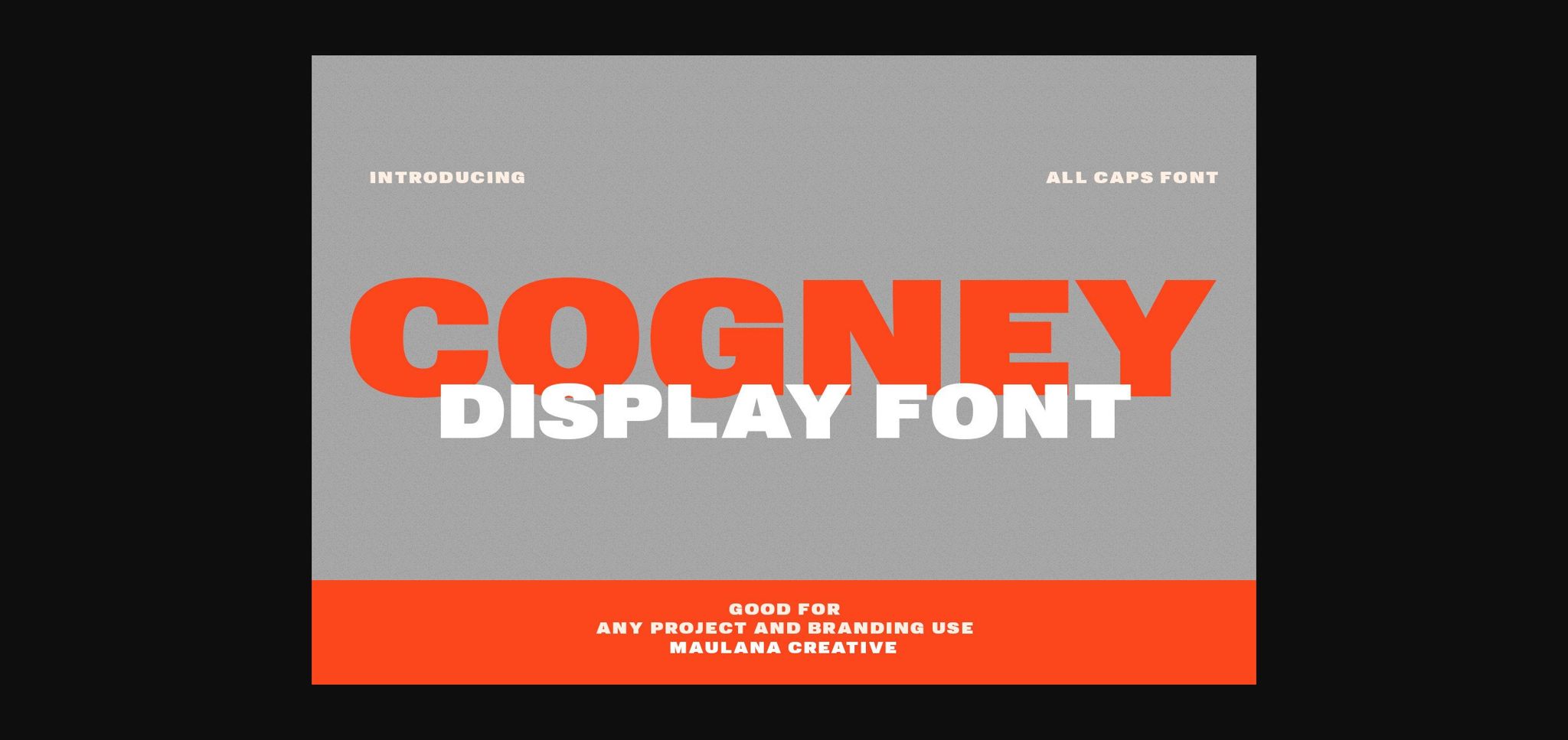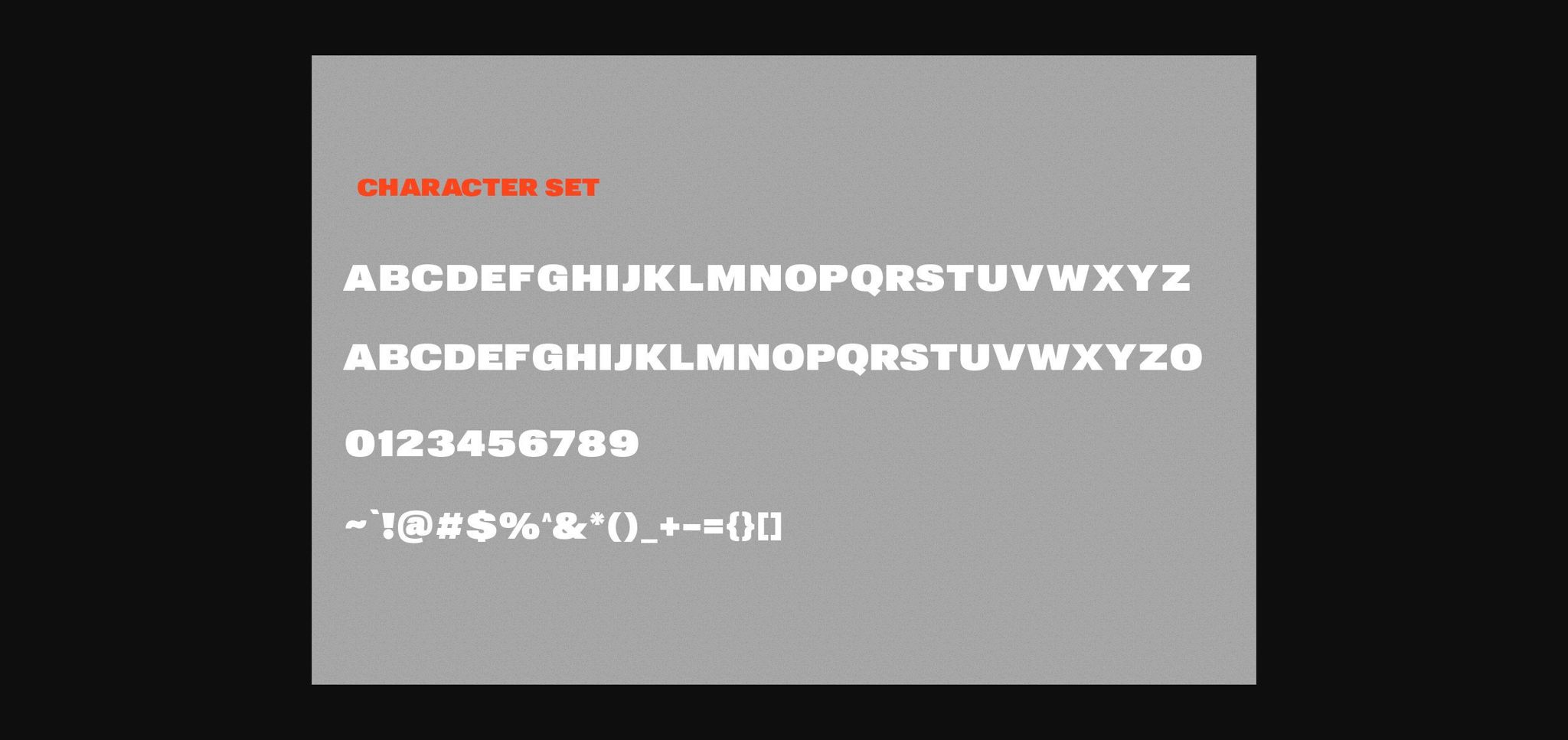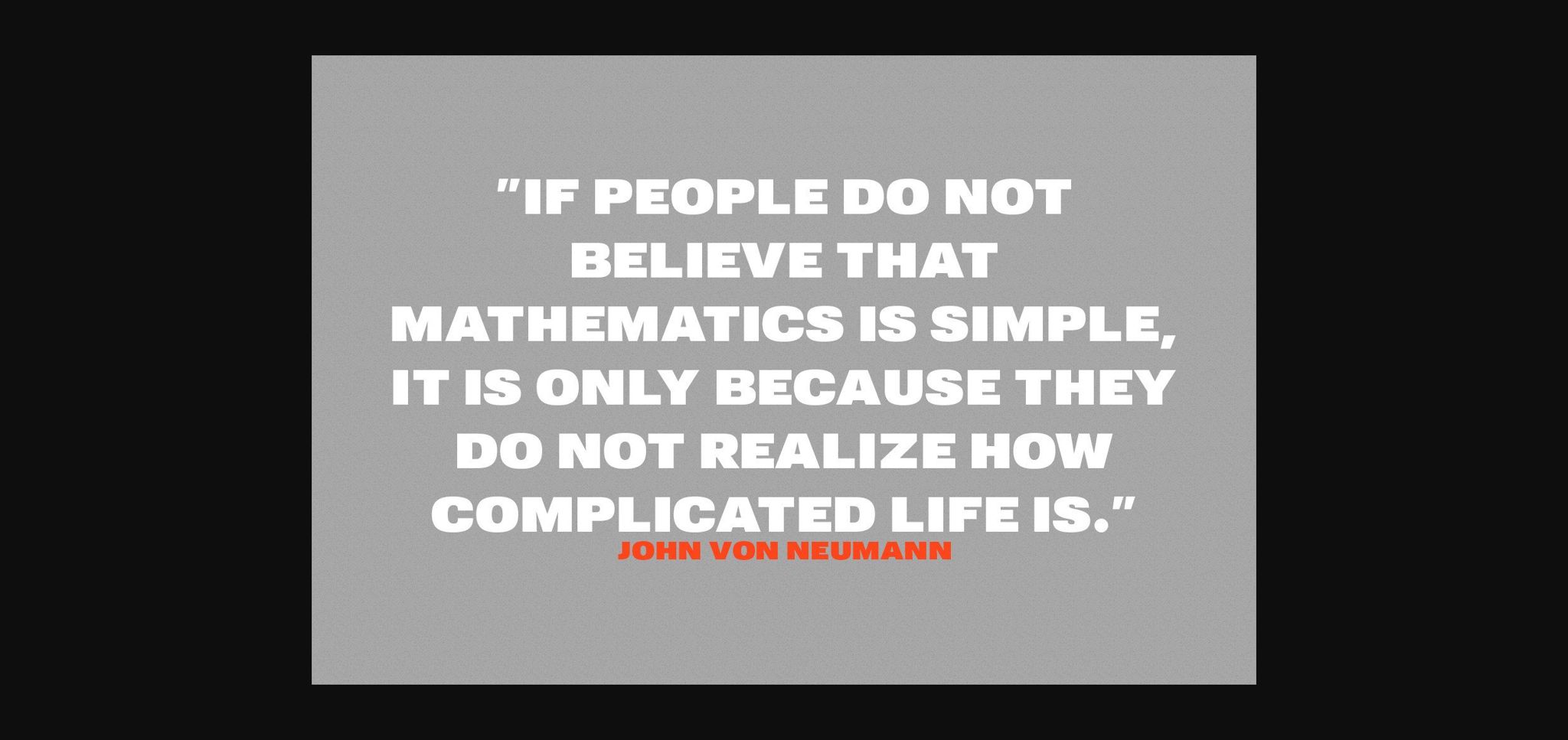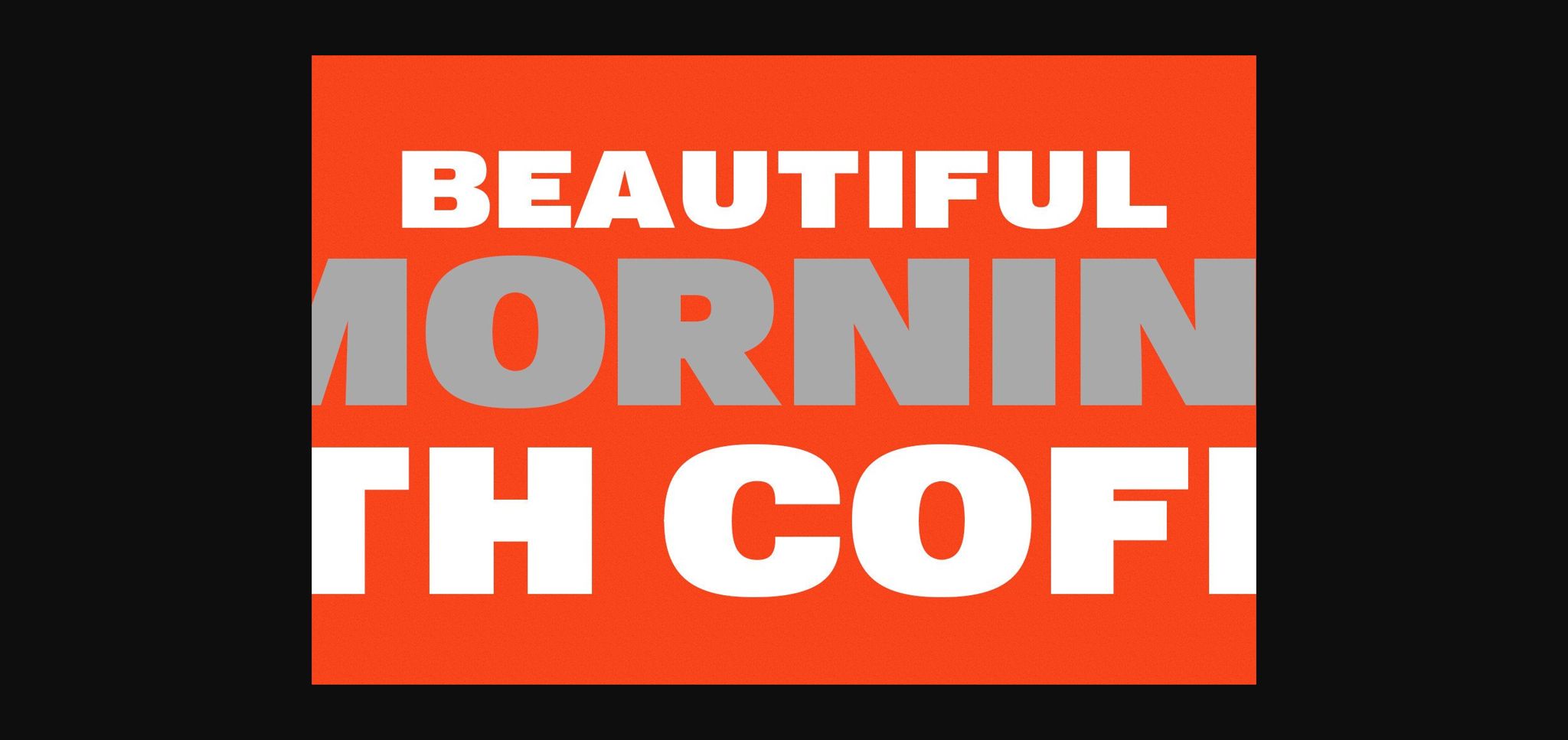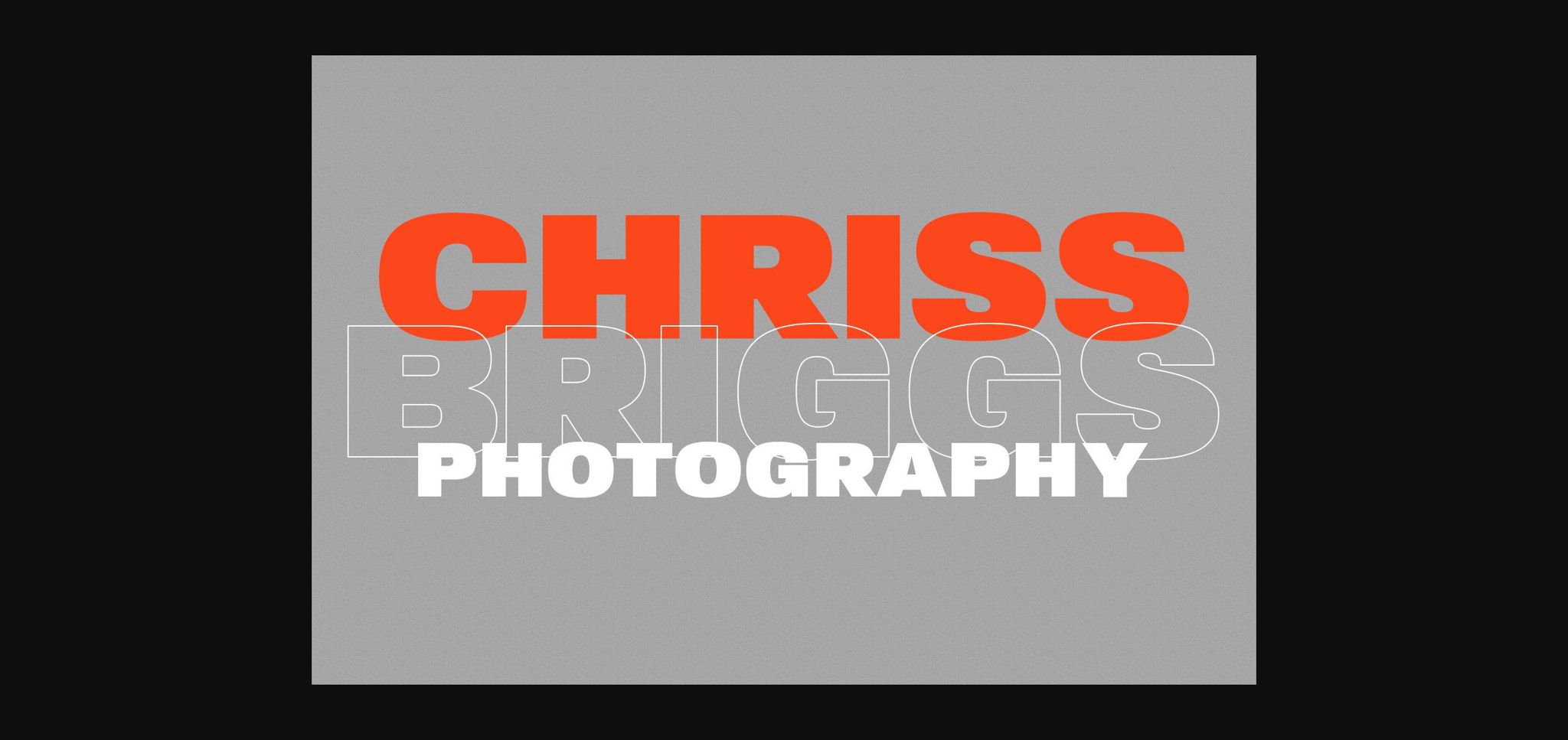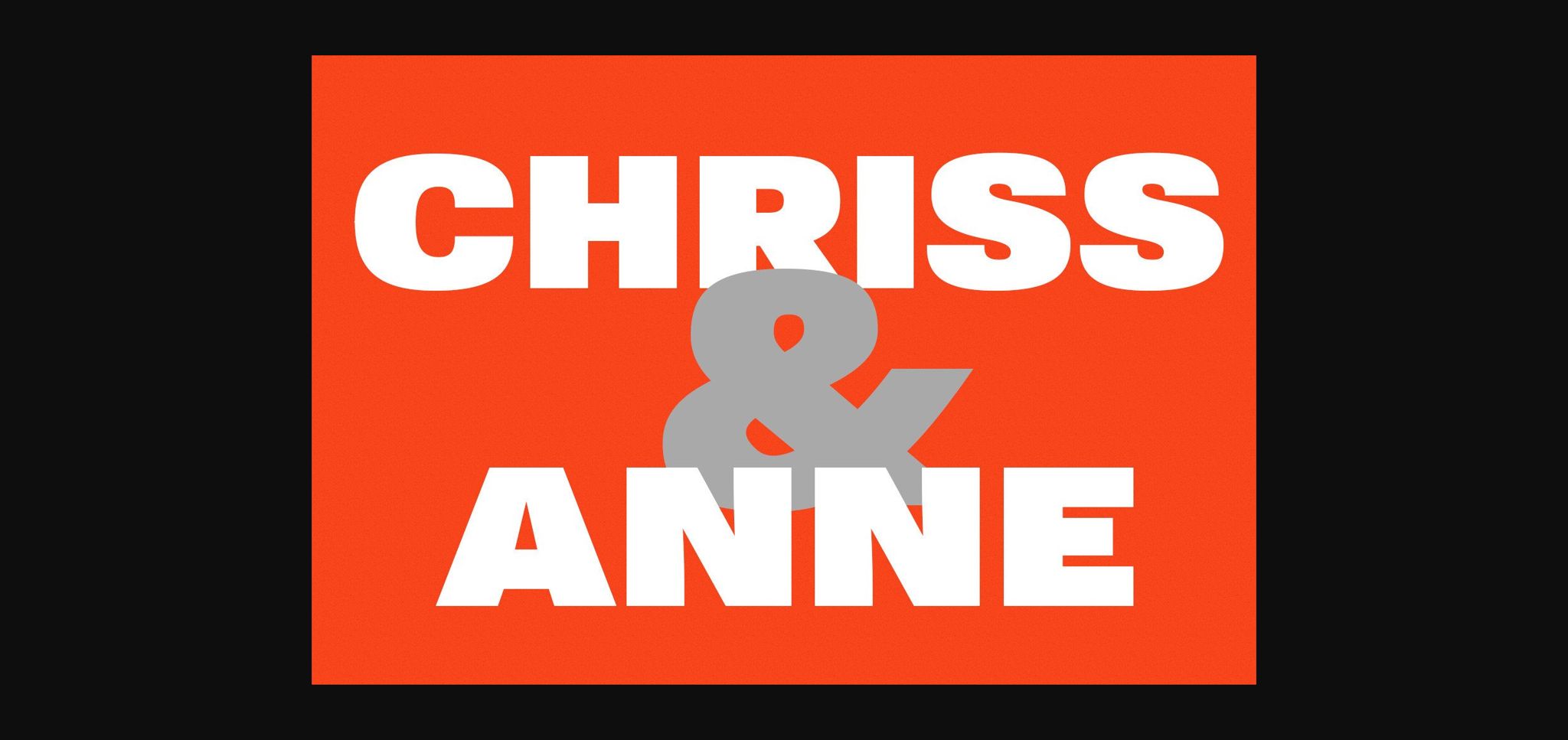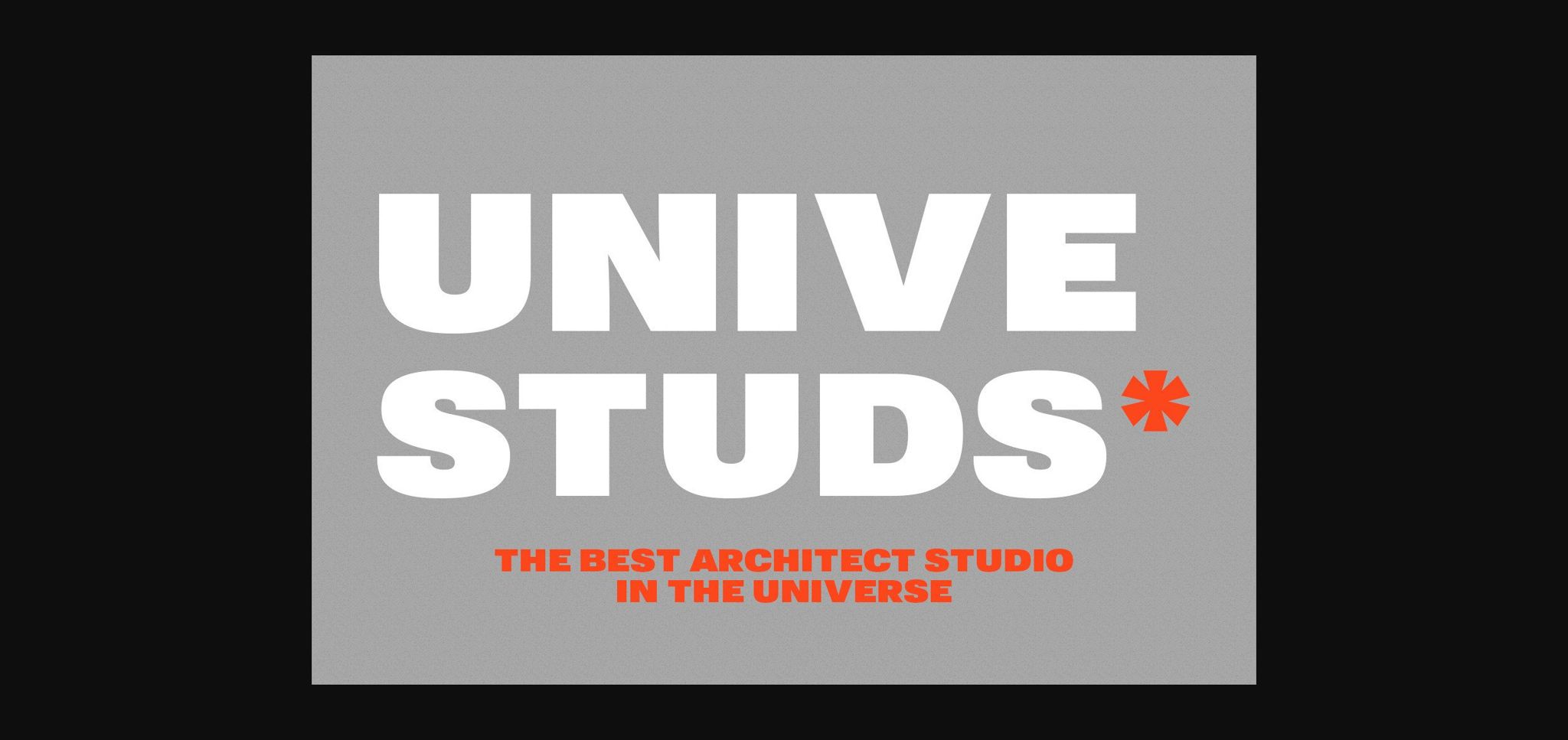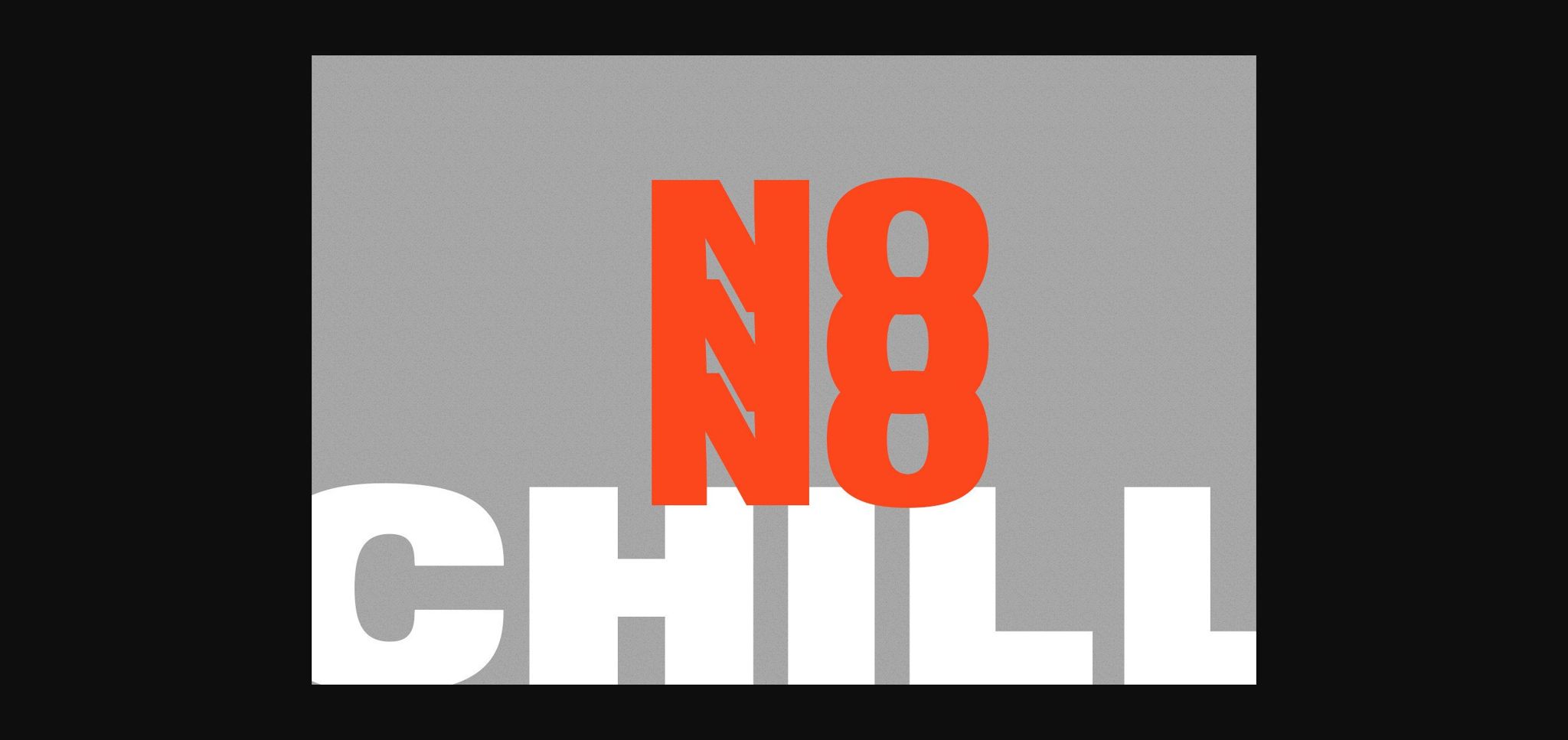
Cogney is an all caps modern sans serif font. Its modern and bold look is guaranteed to make an impact. Add it confidently to your projects and you will be amazed by the outcome generated!